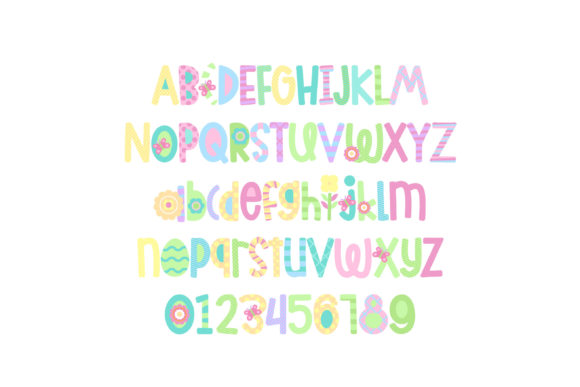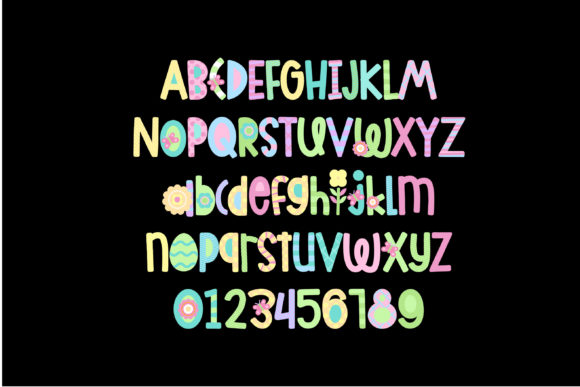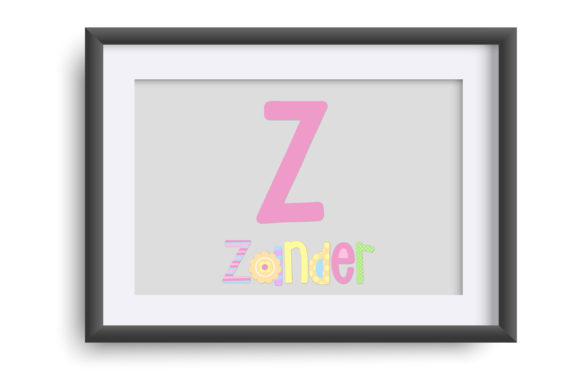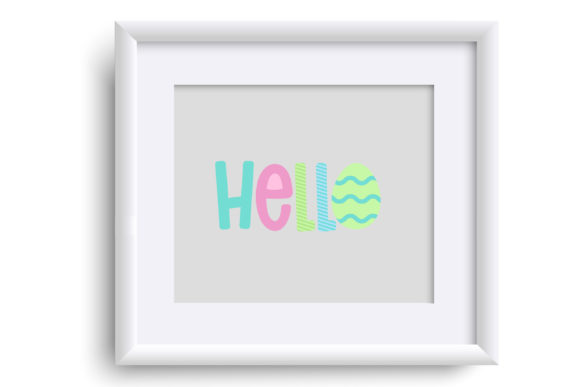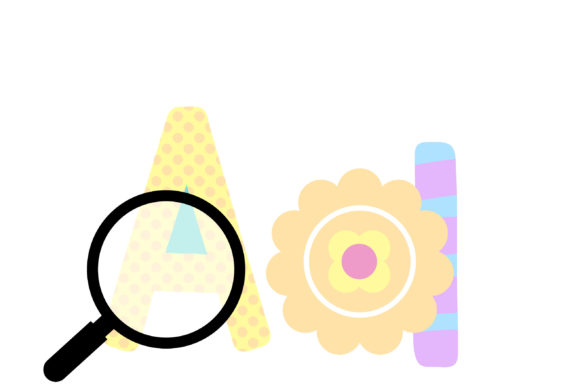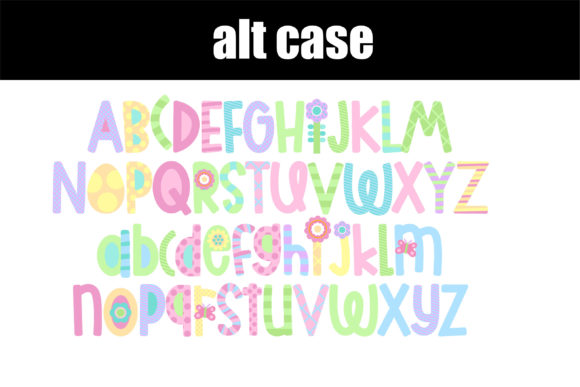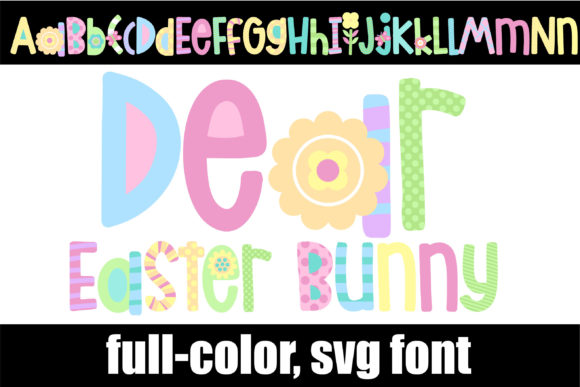
Introducing Dear Easter Bunny Font: The Perfect Addition to Your Easter and Spring Designs
Are you looking for a unique and eye-catching font to make your Easter or Spring-themed designs stand out? Look no further than the Dear Easter Bunny Font! This full-color font features brightly designed lettering that is sure to add a touch of sweetness and charm to any project. In this article, we’ll take a closer look at the Dear Easter Bunny Font, its features, and how you can use it to take your designs to the next level.
A Sweet Decorative Font for Easter and Spring Designs
The Dear Easter Bunny Font is a sweet decorative font that is specifically designed for Easter and Spring-related design ideas. Its simple yet strong visual effect makes it the perfect choice for designers and crafters who want to create eye-catching projects that will grab attention. Whether you’re designing Easter cards, Spring-themed posters, or social media graphics, this font is sure to make your creations more appealing than others.
What Makes Dear Easter Bunny Font Special?
So, what makes the Dear Easter Bunny Font special? For starters, it’s a full-color font that features brightly designed lettering. This means that you can use it to create stunning designs that are sure to stand out. Additionally, the font is PUA encoded, which makes it easy to access all of the amazing glyphs and ligatures. This feature is especially useful for designers who want to add a personal touch to their projects.
- Use the font to create eye-catching Easter or Spring-themed posters, social media graphics, and cards.
- Experiment with different colors and design elements to make your projects truly unique.
- Take advantage of the font’s PUA encoding to access all of the amazing glyphs and ligatures.
- Don’t be afraid to get creative and try out new and innovative design ideas!
Why Choose Dear Easter Bunny Font?
So, why choose the Dear Easter Bunny Font for your Easter and Spring designs? Here are just a few reasons:
- Its unique and eye-catching design makes it perfect for creating stunning Easter and Spring-themed projects.
- The PUA encoding makes it easy to access all of the amazing glyphs and ligatures.
- The font is perfect for designers and crafters who want to create professional-looking projects without spending hours designing from scratch.